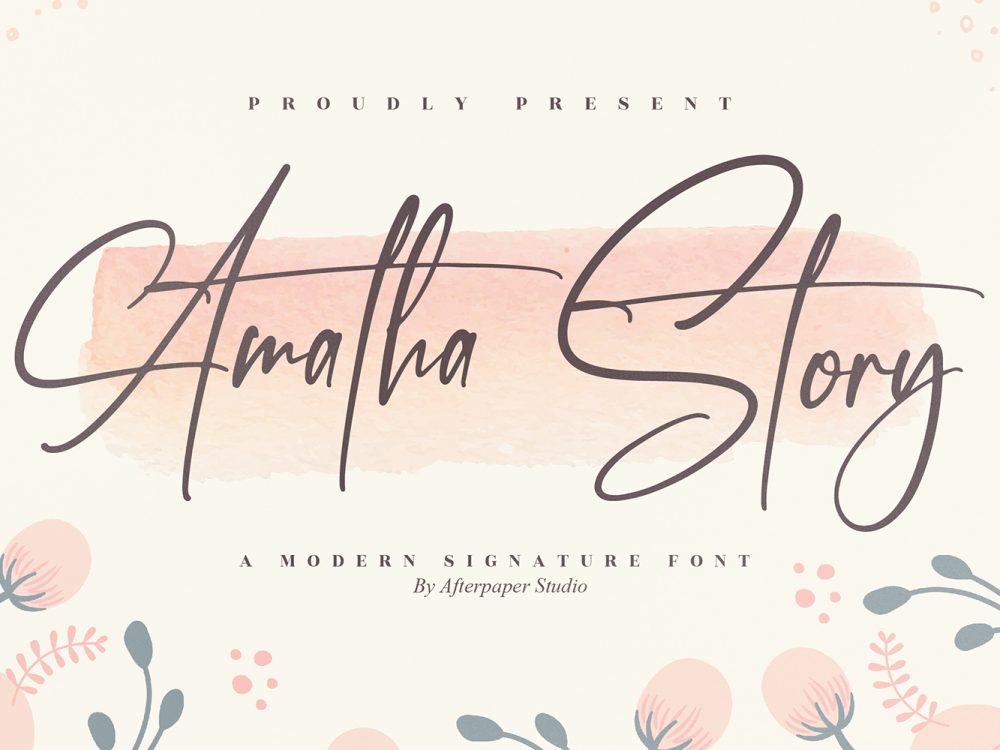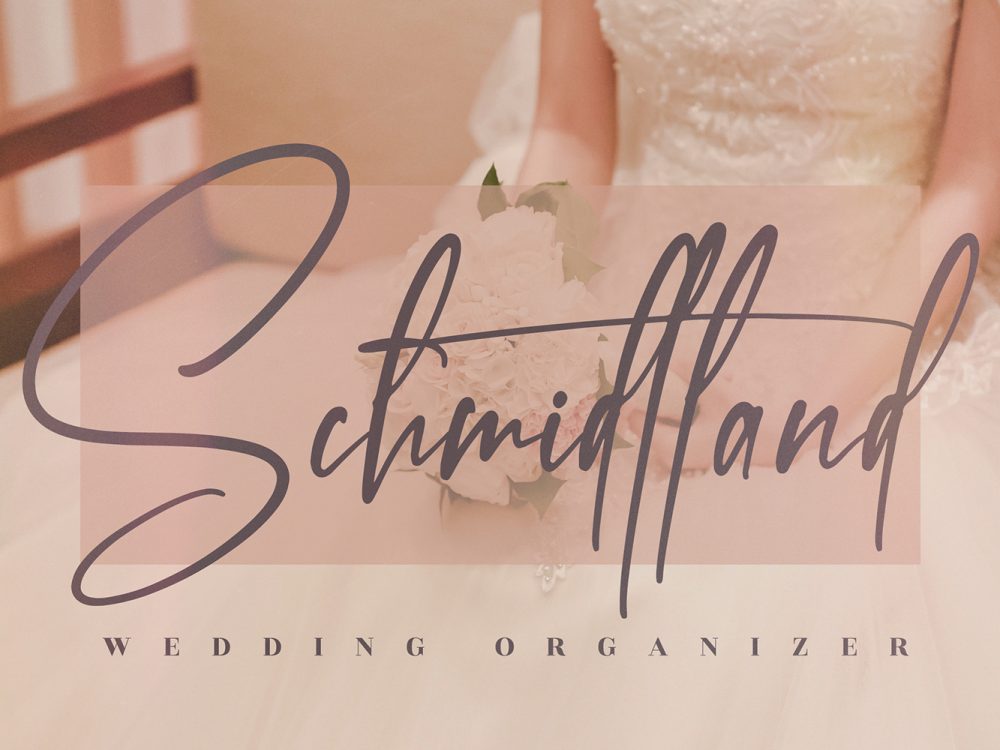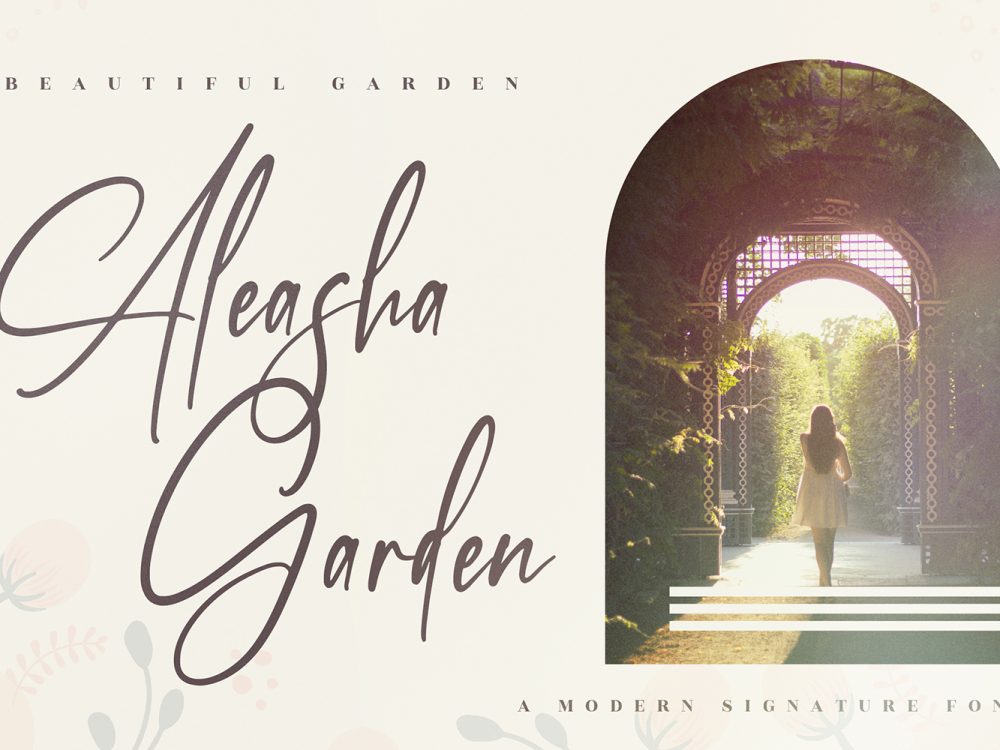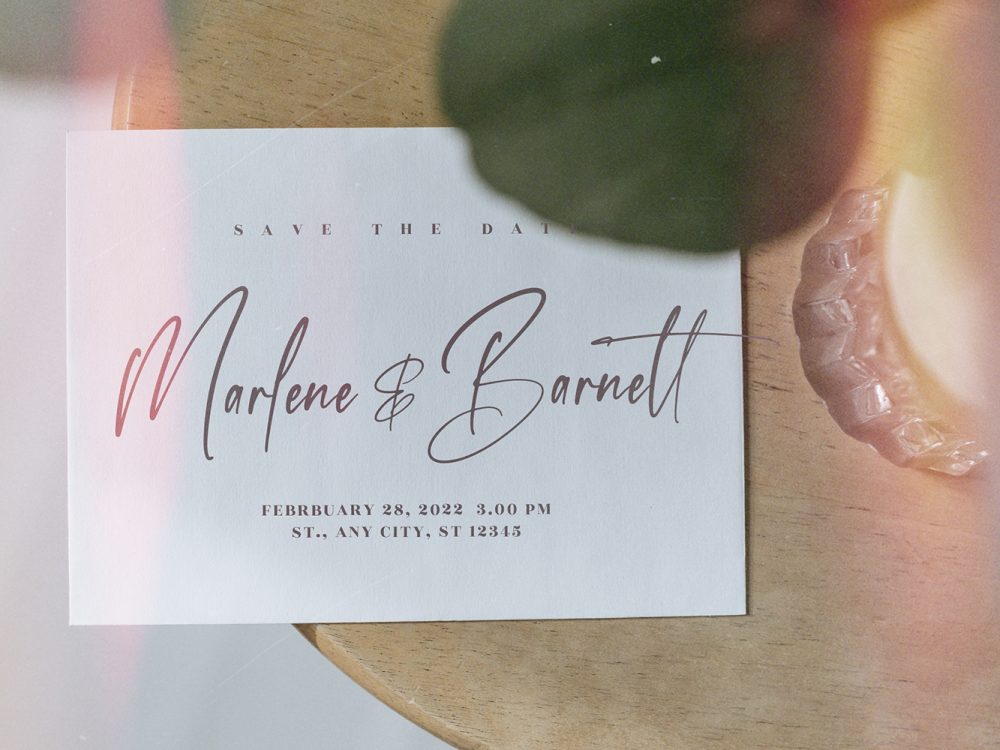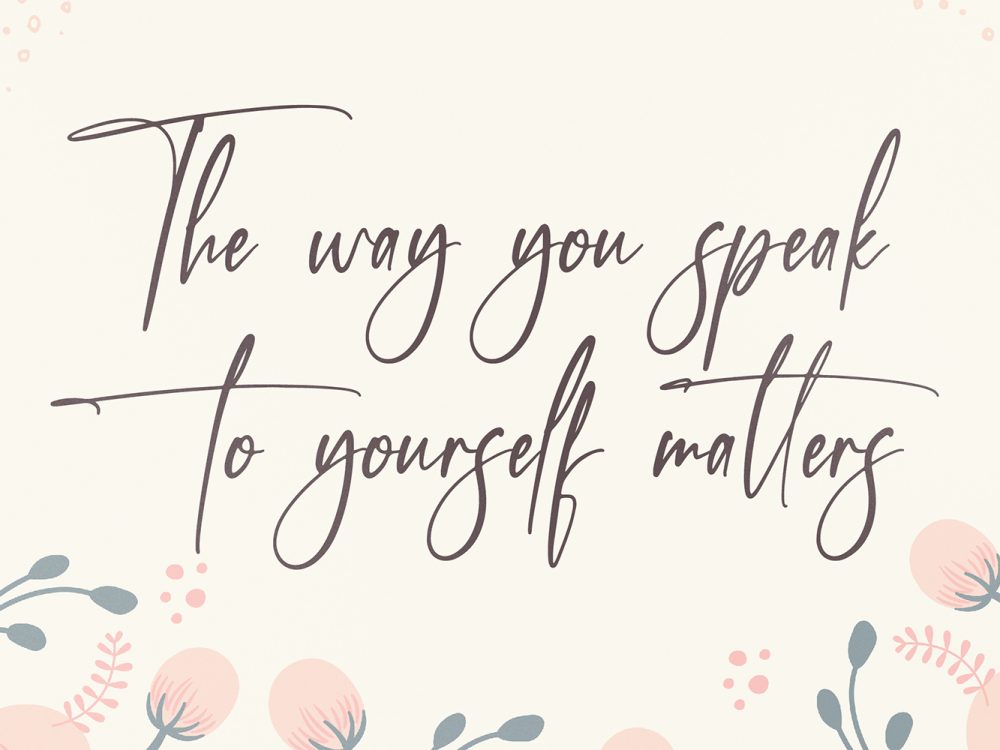
Amatha Story Free Font
Indulge in the enchanting beauty of Amatha Story Free Font, a lovely script font that will add a touch of whimsy to your designs. With its charming and playful characters gracefully dancing along the baseline, this font is a true delight. Unlock the full potential of your creative ideas by incorporating Amatha Story into your projects, and witness how it makes them truly stand out. Let your imagination run wild as Amatha Story infuses your designs with a unique and captivating flair. Its captivating charm will leave a lasting impression on your audience, making it an ideal choice for various creative ventures. If you like it don’t forget to check out the full version.